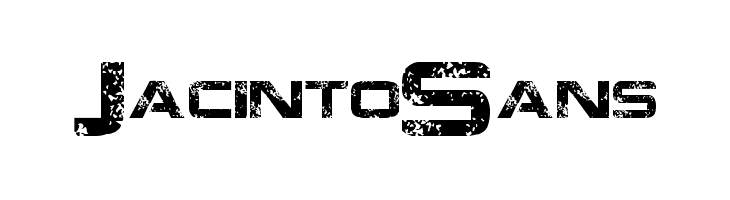
A creative display font inspired by medical instruments, perfect for anatomical themes.
A bold, distressed font with a grunge texture, perfect for rugged and edgy designs.
A decorative font styled like film negatives, perfect for vintage or cinematic themes.
A distressed, textured font with a rugged, vintage feel.
A whimsical, curly font perfect for playful and fun designs.
A playful font with letters inside balloon shapes, perfect for festive occasions.
A bold, distressed font ideal for spooky, horror-themed designs.
A whimsical, heart-themed font perfect for romantic designs.